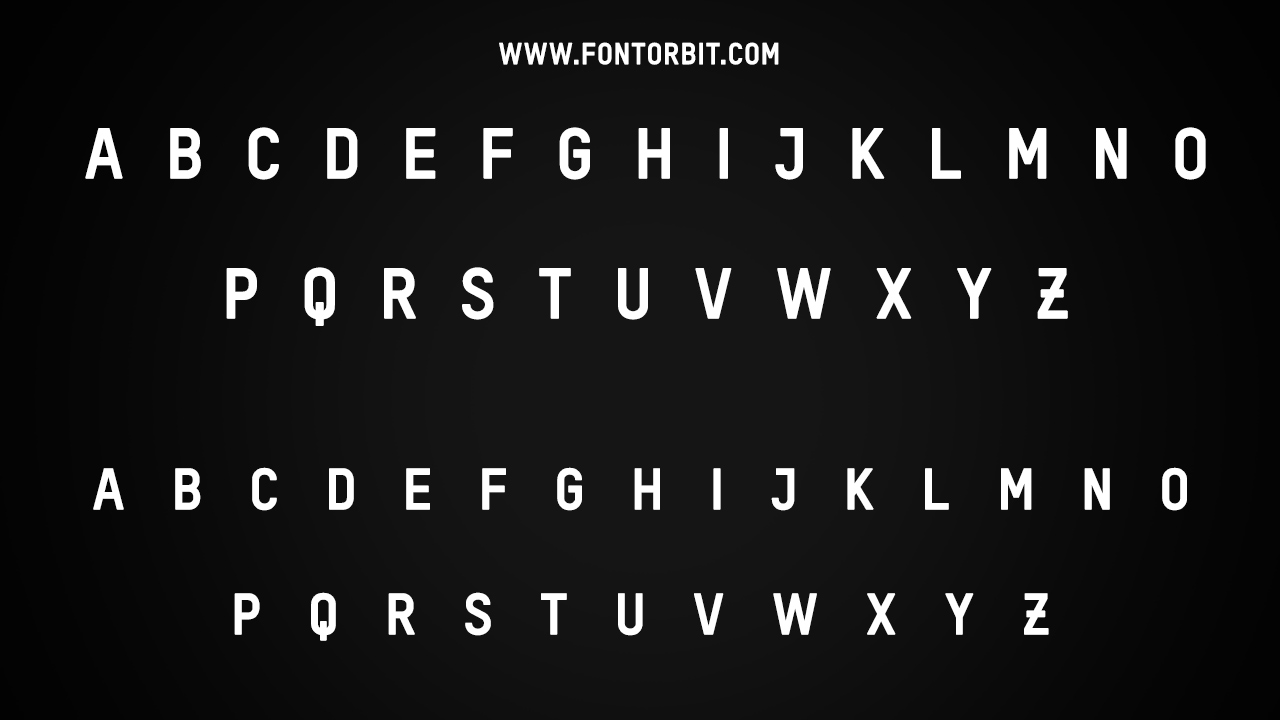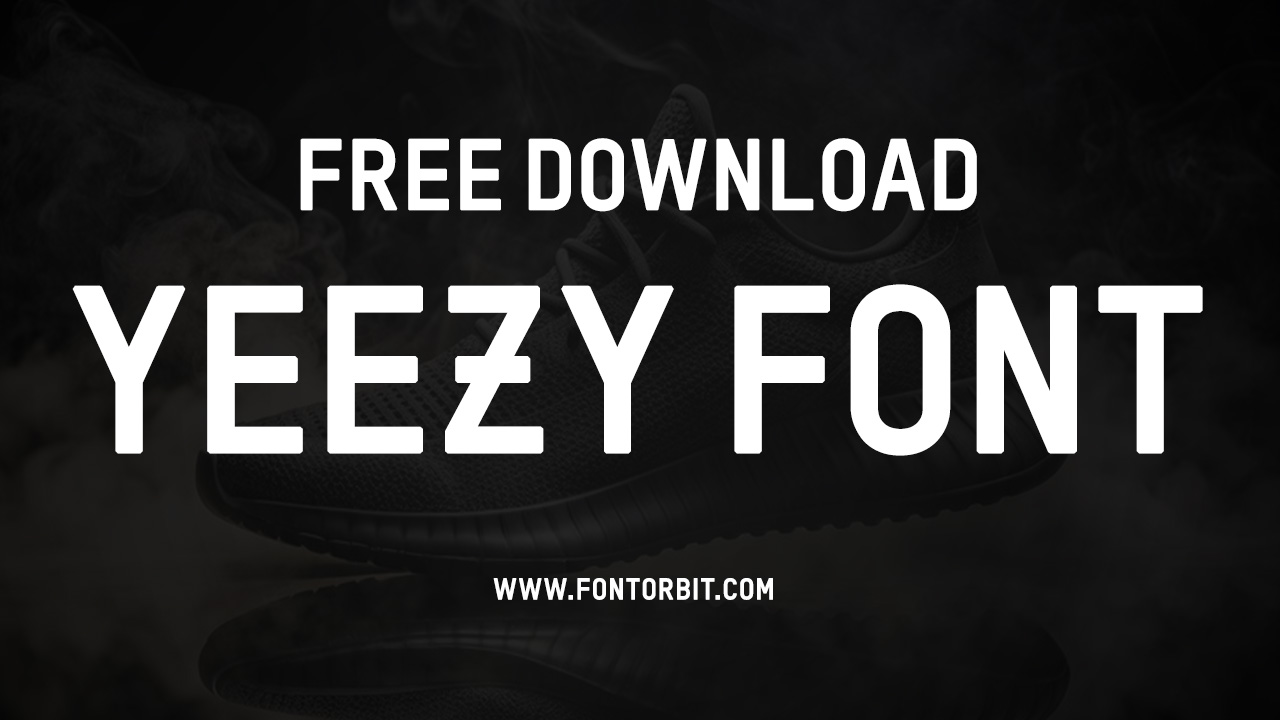
Yeezy Font is a sleek typeface inspired by the minimalist and high-end aesthetic of the Yeezy brand, founded by Kanye West. Replicated by Logan McAnsh, this font captures the essence of Yeezy’s modern and exclusive style. It is available for free personal use and is perfect for adding a touch of sophistication and trendiness to your projects.
Types Of The Yeezy Font
a. Yeezy Tstar Bold
This replica of Yeezy Font is offered in OTF and TTF formats. Its minimalist design features bold letterforms with clean lines, making it suitable for a variety of high-impact and modern applications. The font includes a range of glyphs that align with Yeezy’s contemporary and fashionable branding.
The Yeezy Font delivers a stylish and modern look that is perfect for various creative and personal applications. Embodies the exclusive, minimalist aesthetic of the Yeezy brand. Ideal for enhancing social media profiles, fashion branding, and contemporary designs.
2.What Are The Key Elements To Look For In Yeezy Font Design?
Look for bold letterforms, clean lines, and a minimalist style that reflects the Yeezy brand’s modern and exclusive image.